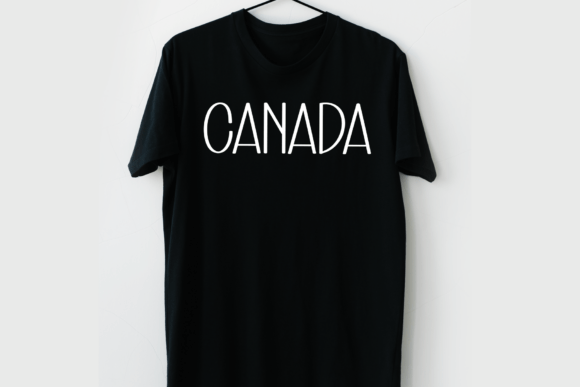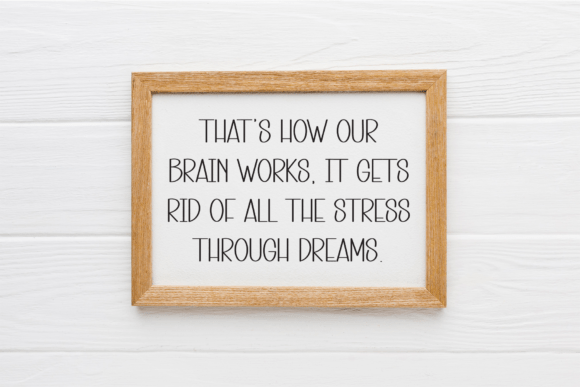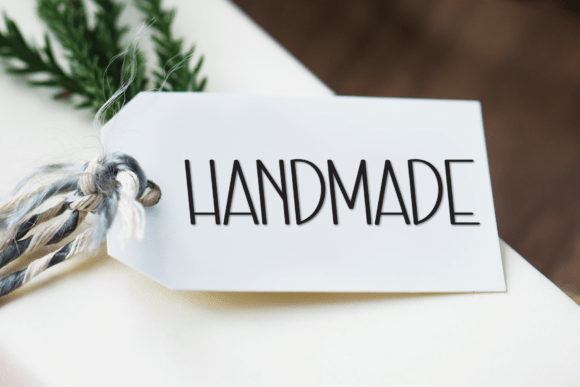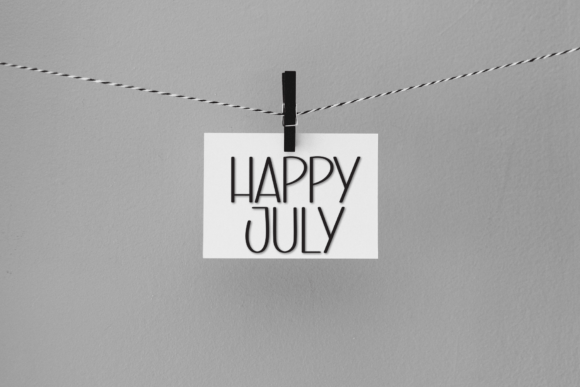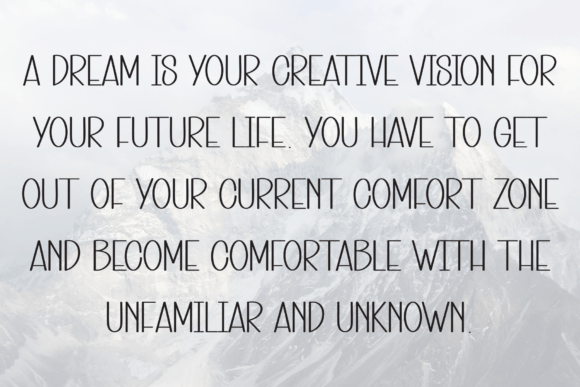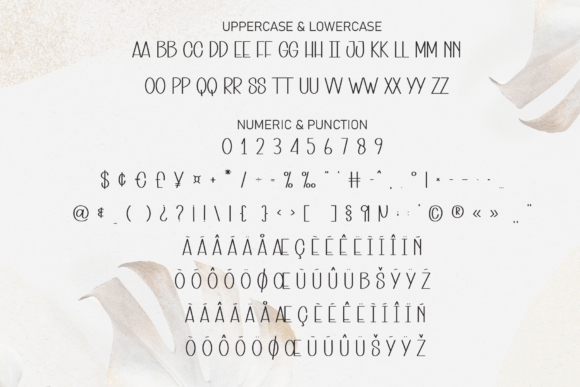
The Elegant Font: A Designer’s New Best Friend
I’ll never forget the time I was working on a branding project for a boutique client, and I just couldn’t find the right font to capture the essence of their elegant yet approachable vibe. I scrolled through page after page of Google Fonts, tried out dozens of paid fonts, but nothing seemed quite right. That was until I stumbled upon the Elegant font. With its clean lines, balanced letterforms, and subtle rounded edges, it was love at first sight! ✨
- ✨ The perfect blend of simplicity and friendliness, making it ideal for a wide range of design projects.
- ✅ Clean lines and balanced letterforms that give it a polished finish.
- 💡 Versatile style that works well for both digital and print designs.
- 🎨 Subtle rounded edges that add a touch of warmth and approachability.
While the Elegant font is an excellent choice for many design projects, there are a few things to keep in mind. 🤔
- ⚠️ It may not be the best choice for very small text sizes, as the subtle rounded edges can become less defined.
- ⚠️ Some users may find the font a bit too similar to other popular fonts, making it less unique.
The Story Behind Elegant Font
The Elegant font was designed with the goal of creating a modern, yet approachable font that captures the essence of handwritten typography. The designer, inspired by the beauty of everyday handwritten notes, aimed to create a font that is both elegant and friendly. 💫
Q: What is the Elegant font best suited for?
A: The Elegant font is ideal for branding, headlines, packaging, and digital content, where a warm and inviting touch is desired.
Q: Is the Elegant font suitable for body text?
A: While the Elegant font is beautiful, it’s best suited for headlines and titles. For body text, a more traditional font may be more readable.
Q: Is the Elegant font available in different languages?
A: Yes, the Elegant font supports multiple languages, making it a great choice for global brands and projects.